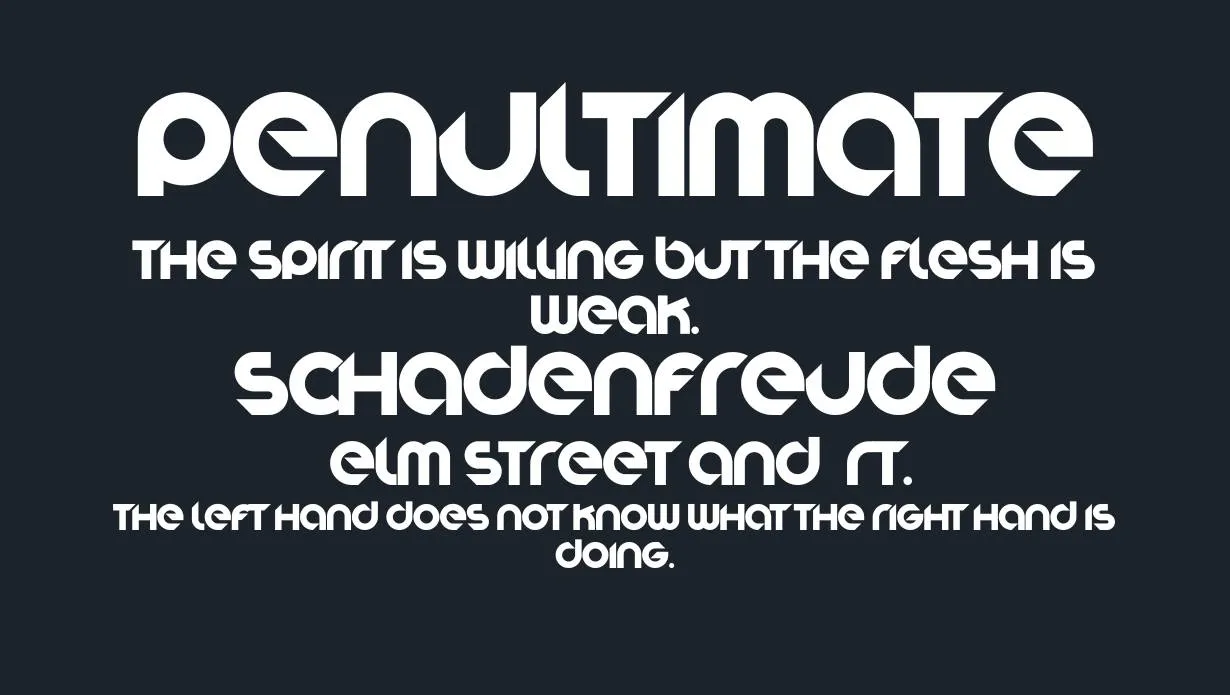
The Stereofunk font is a vibrant and energetic typeface designed to command attention. Characterized by bold lines and dynamic shapes, this font is well-suited for projects that seek to convey excitement and liveliness.
Whether used in event promotions, posters, or digital graphics, Stereofunk injects a dose of energy into the visual presentation, ensuring that the content stands out in a crowd.
| Designer | Alanbrowndesign |
| Style | Techno |